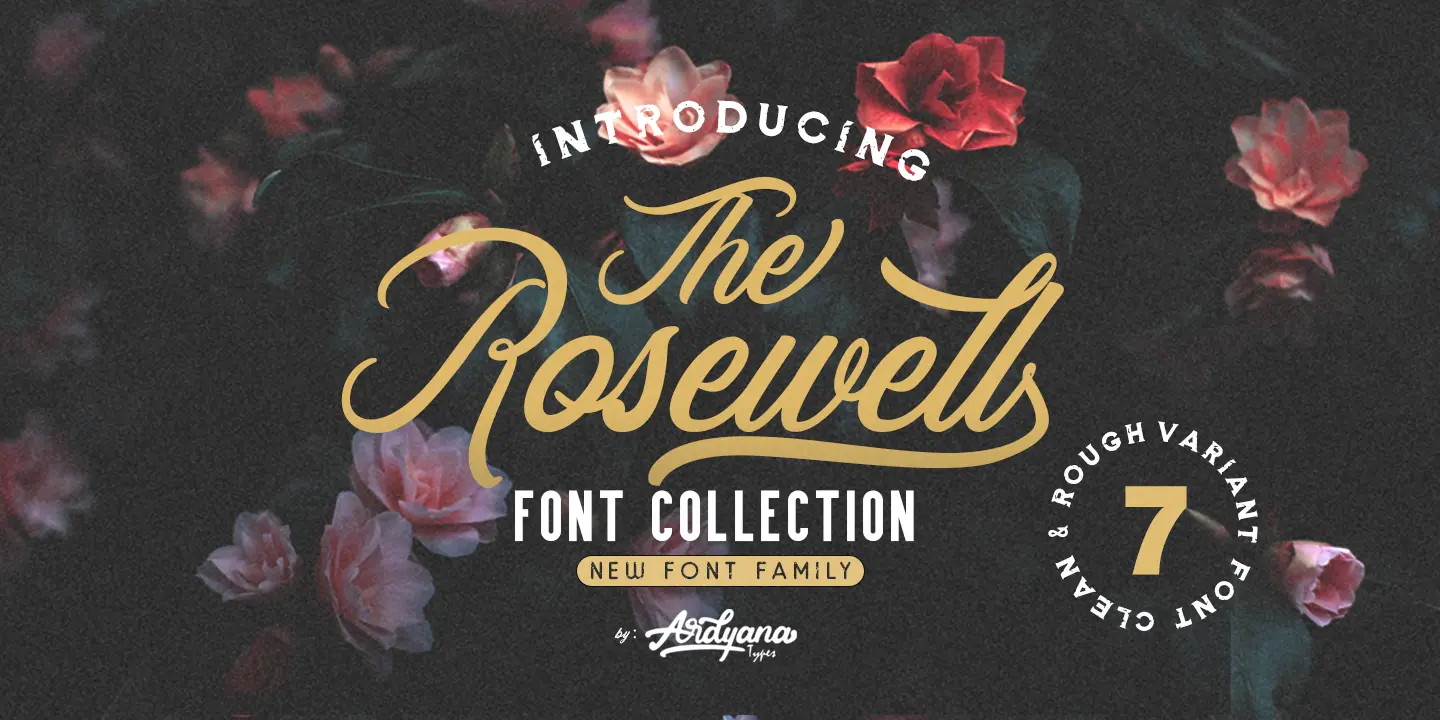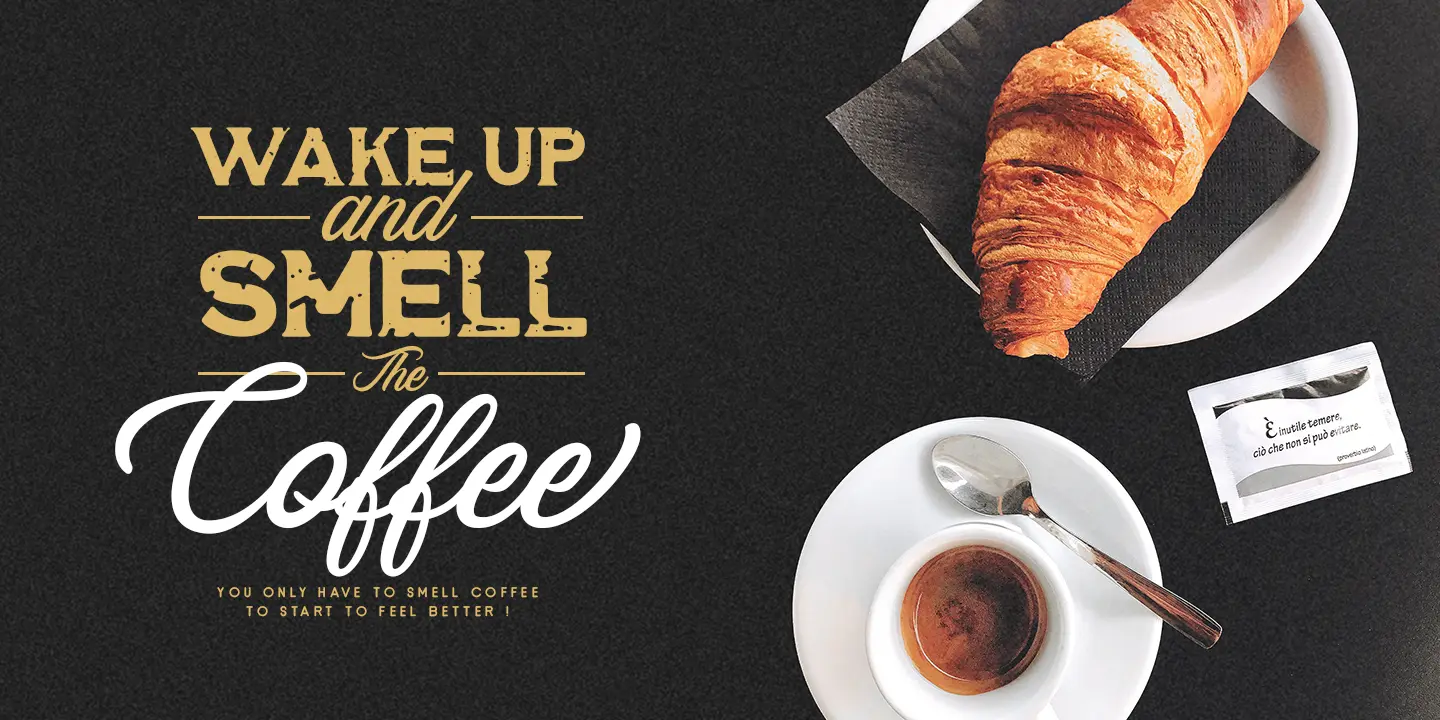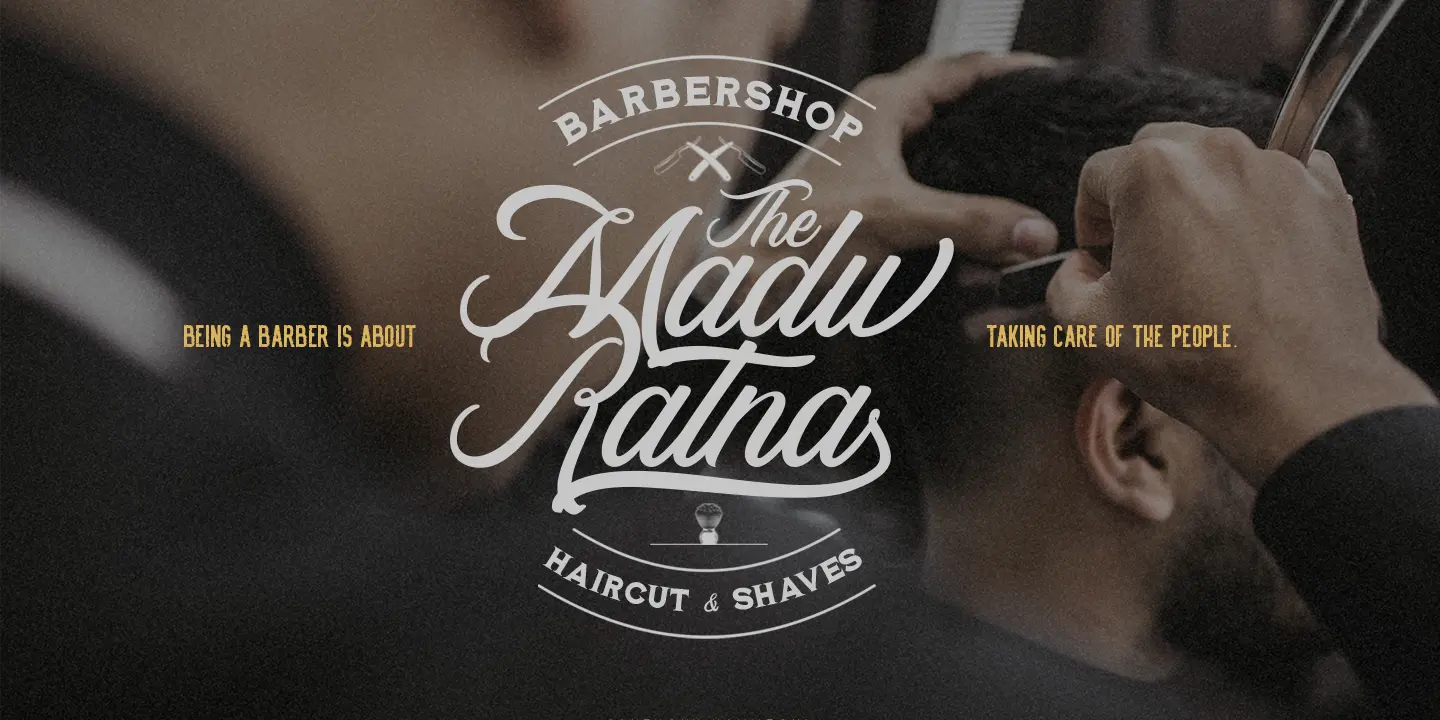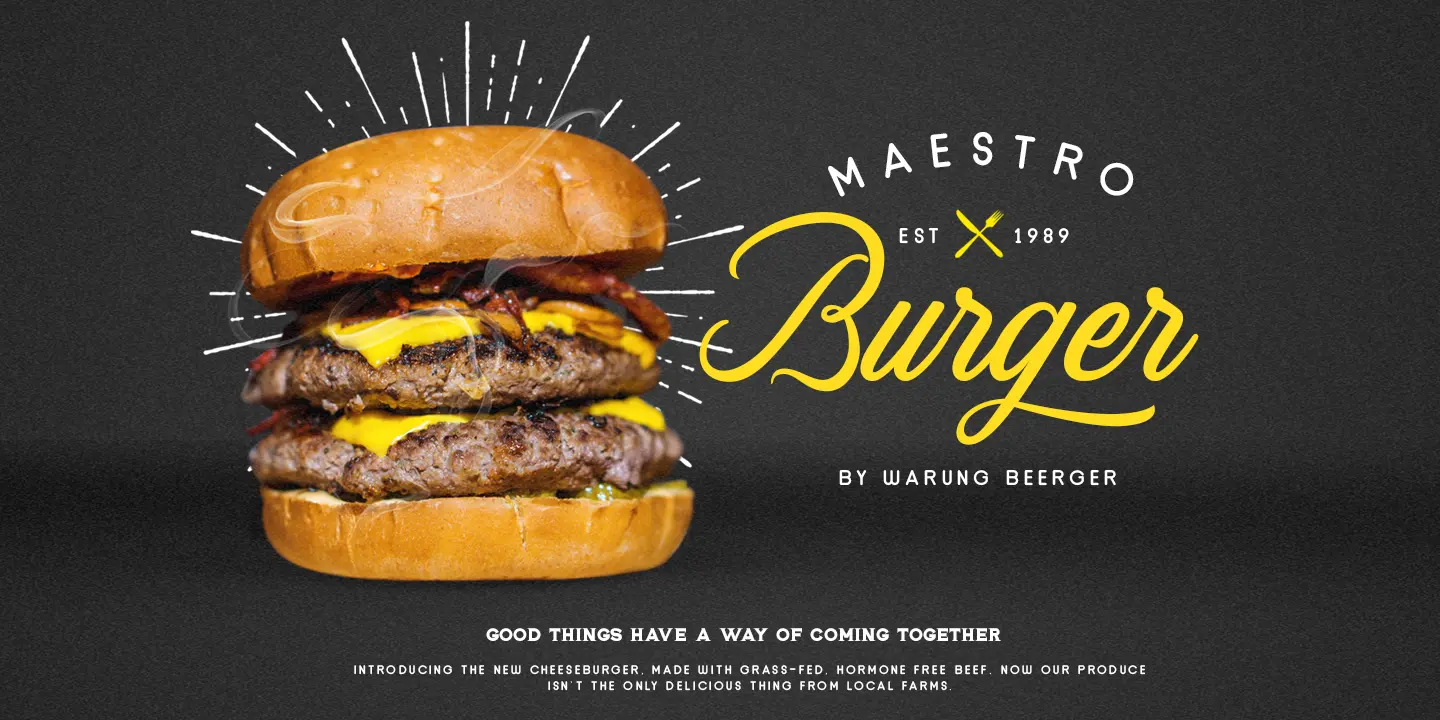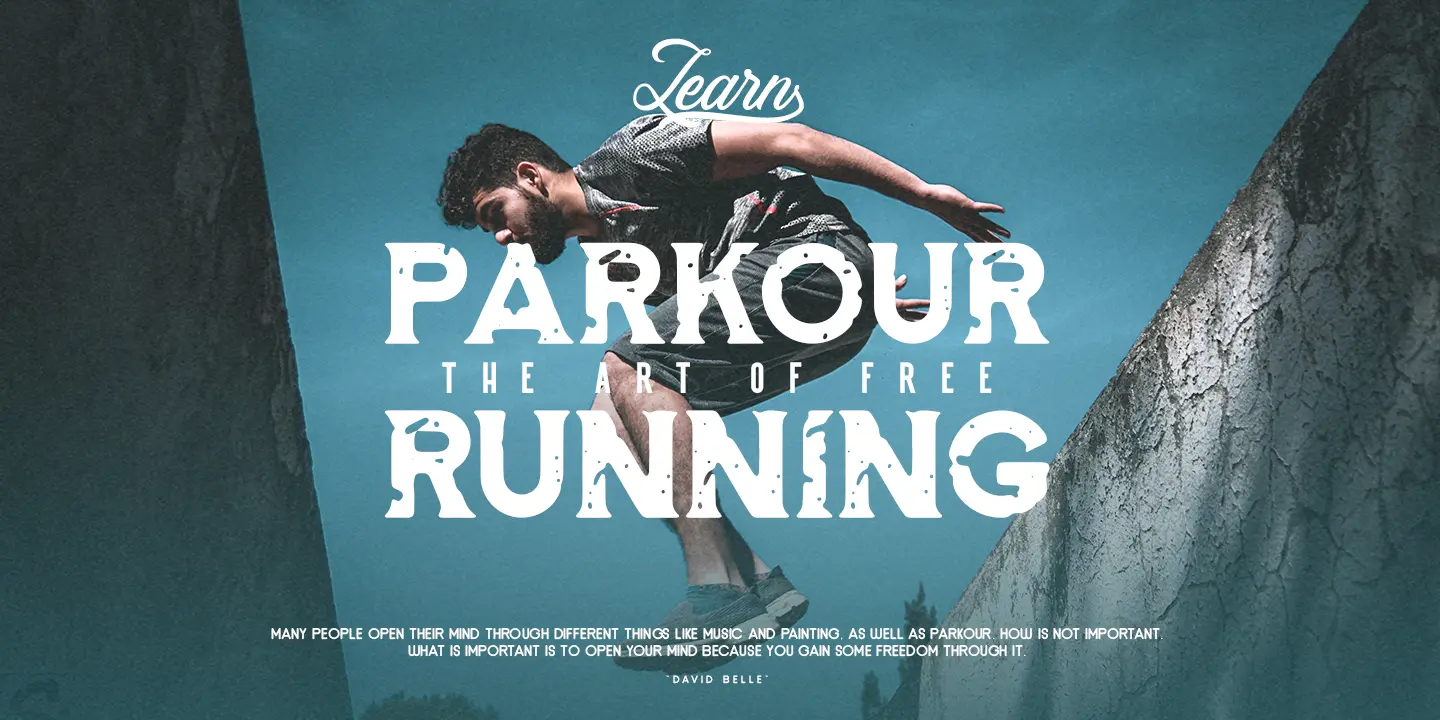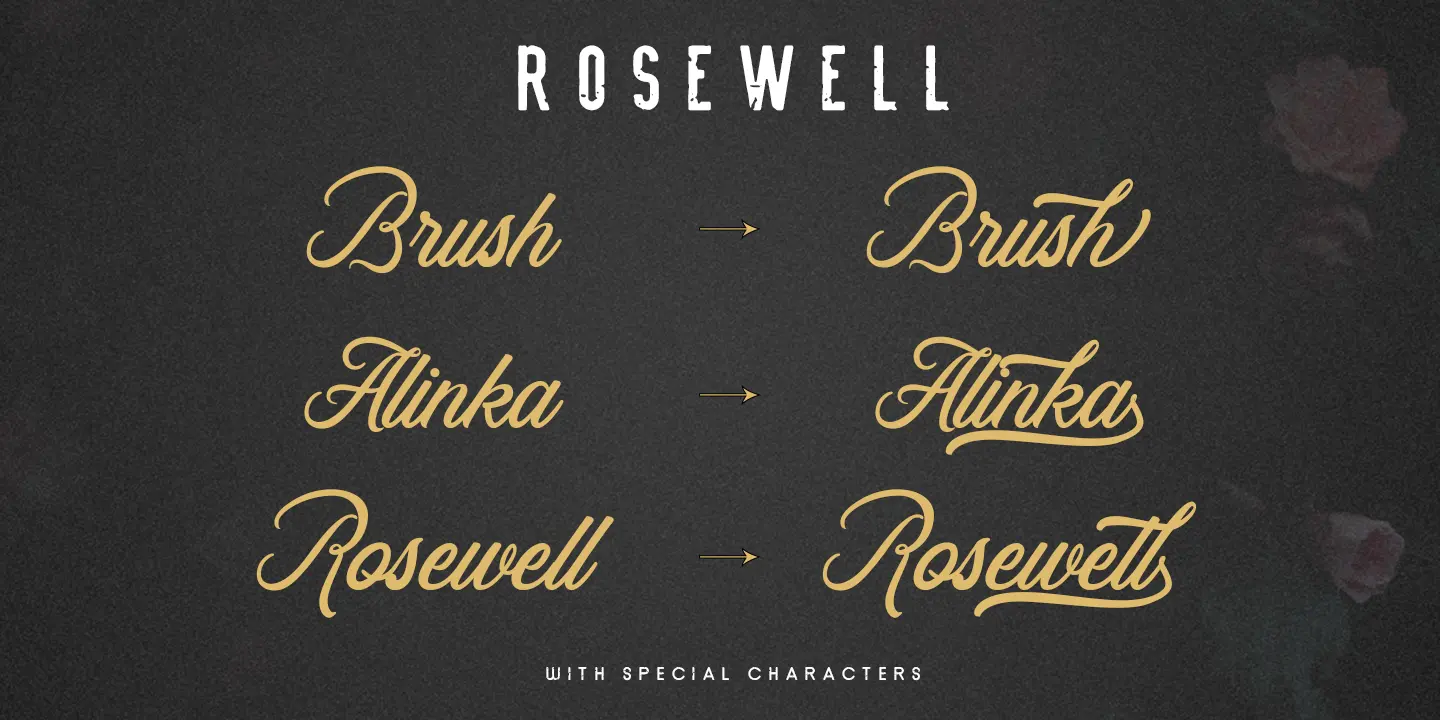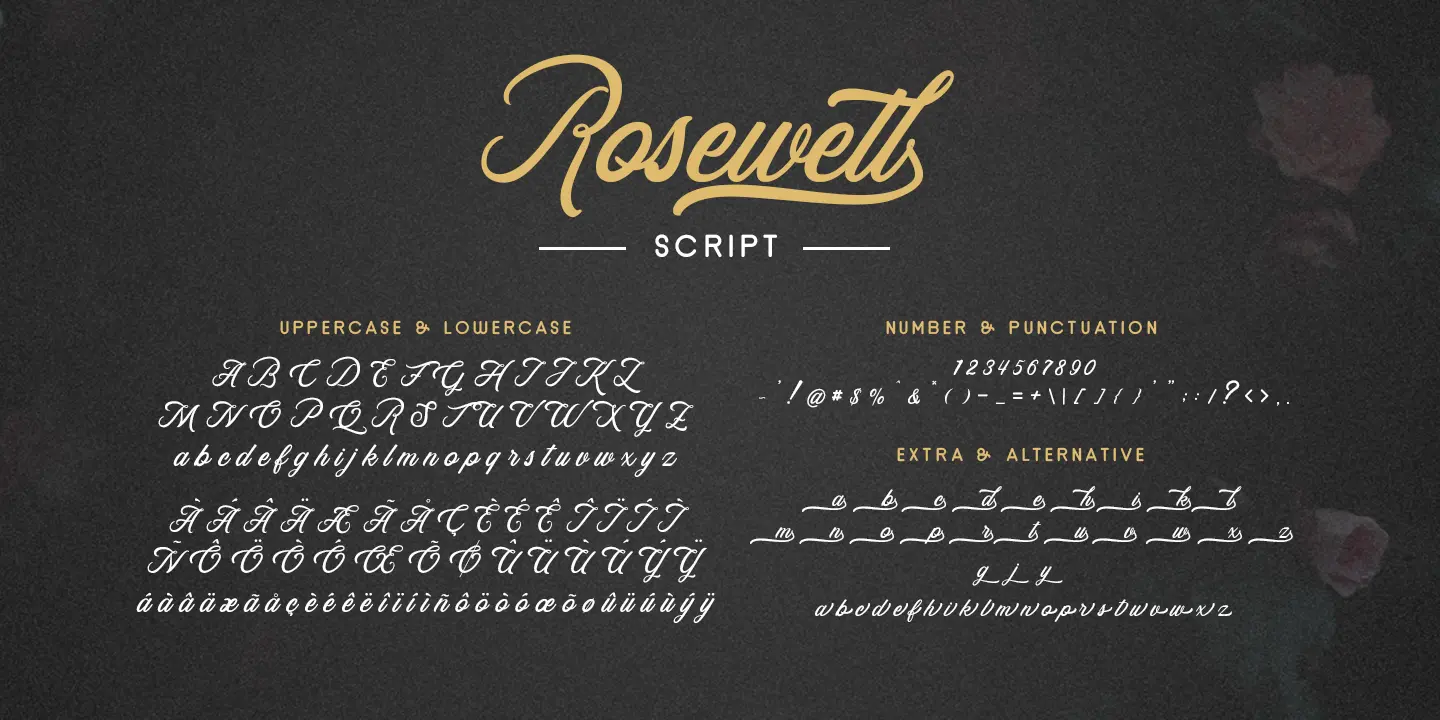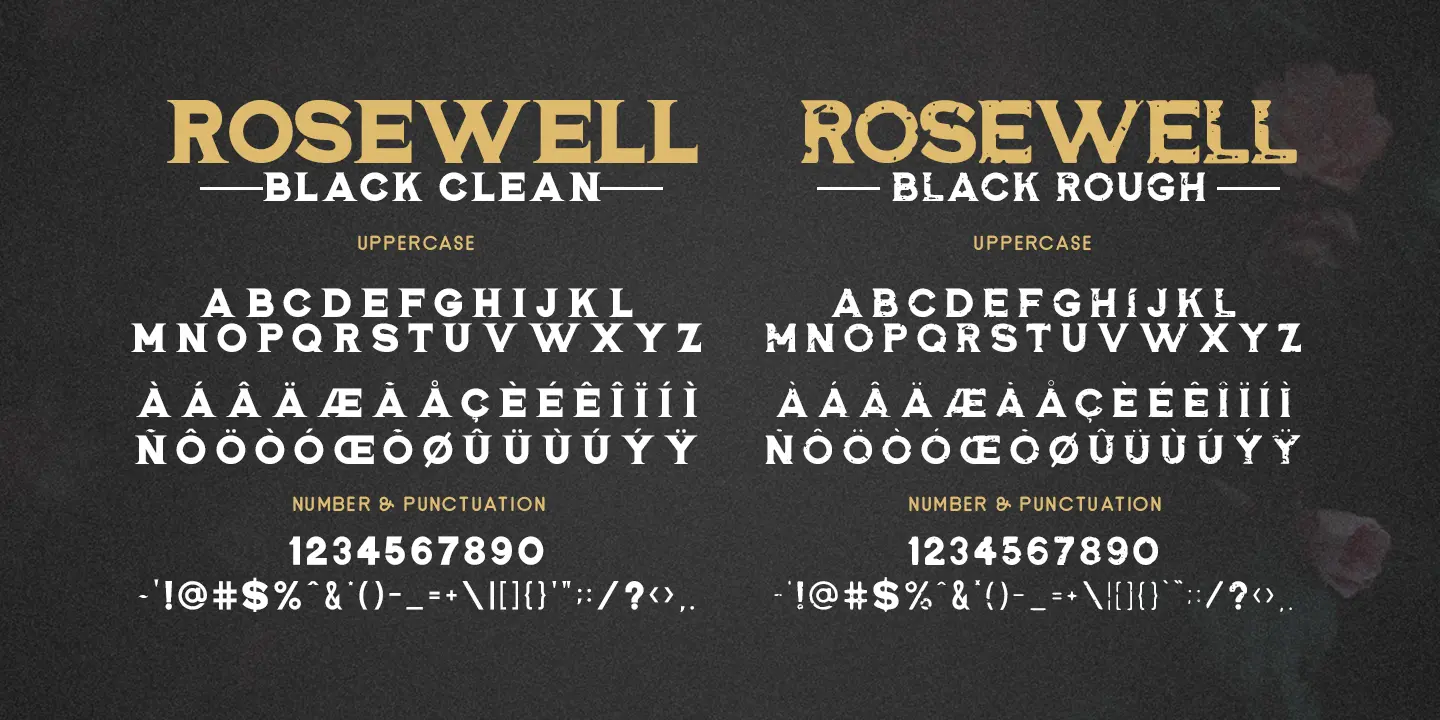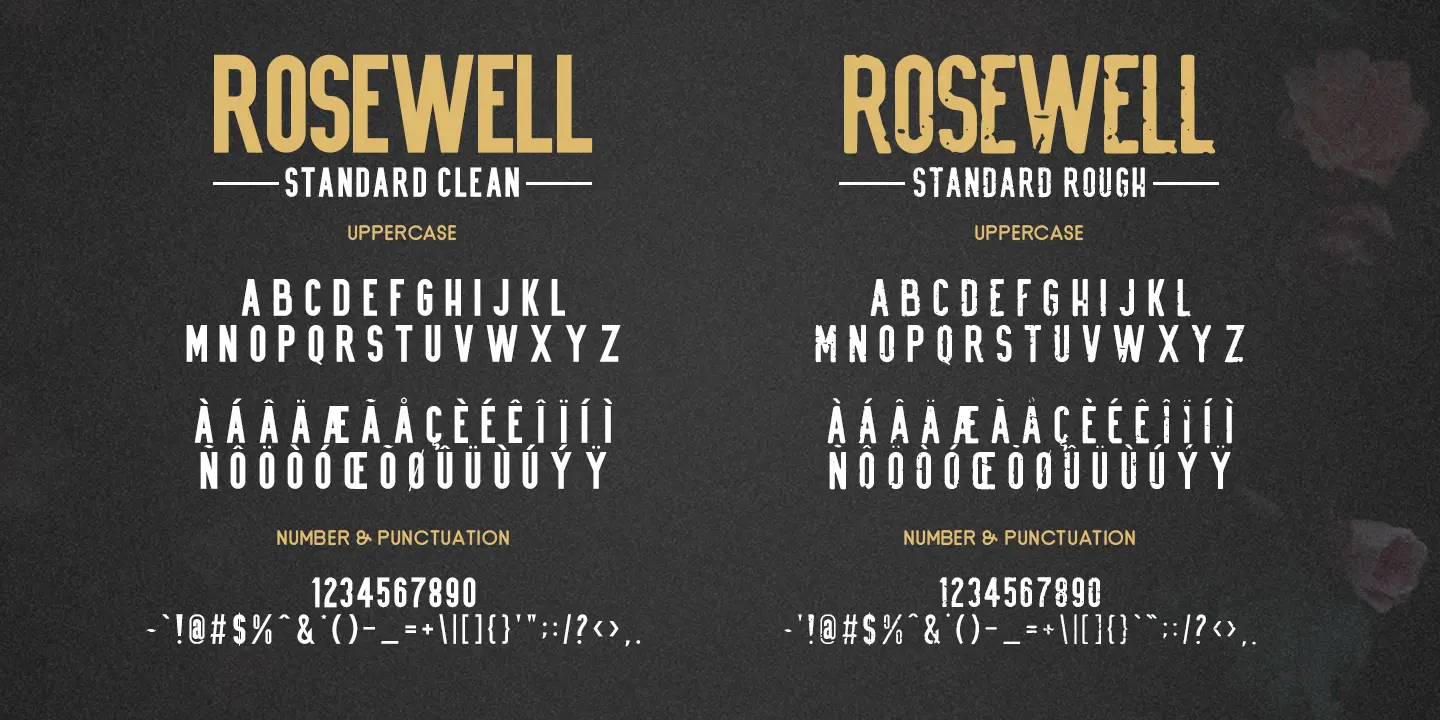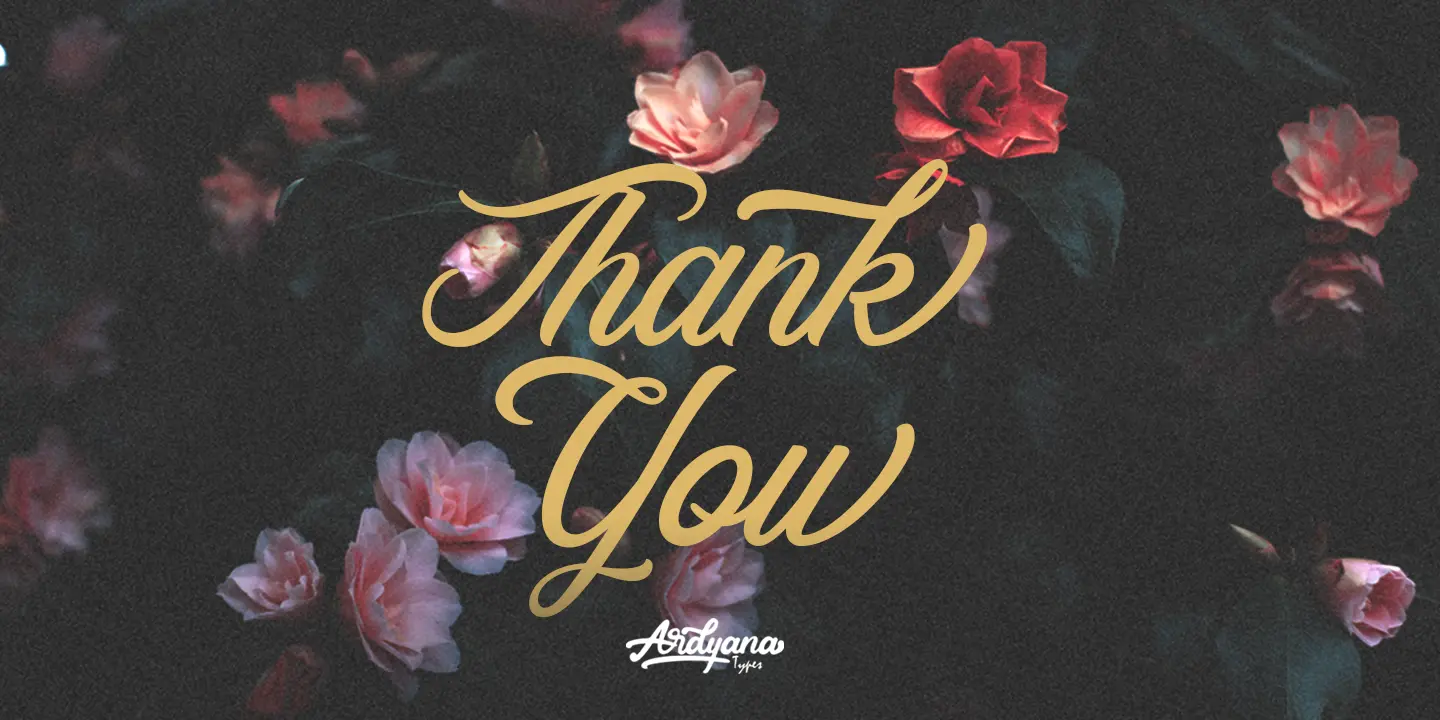
Rosewell
Rosewell, presented with 7 font variations with different accents. Rosewell has a very interesting font type and sans serif script to be combined so that it is more elegant and amazing. Rosewell also has two different characters in each sans serif letter including clean and rough to give a retro impression. Rosewell itself was inspired by a variety of handwriting arts that are often ornamented in cafes and lounges and also eccentric urban mural arts so that Rosewell has its own charm when used. We keep this font looking elegant, classy, easy to read, stylish, easy to remember, and easy to use. Rosewell is the best choice for logo design, quotes, album covers, posters, business cards, and many other design projects.